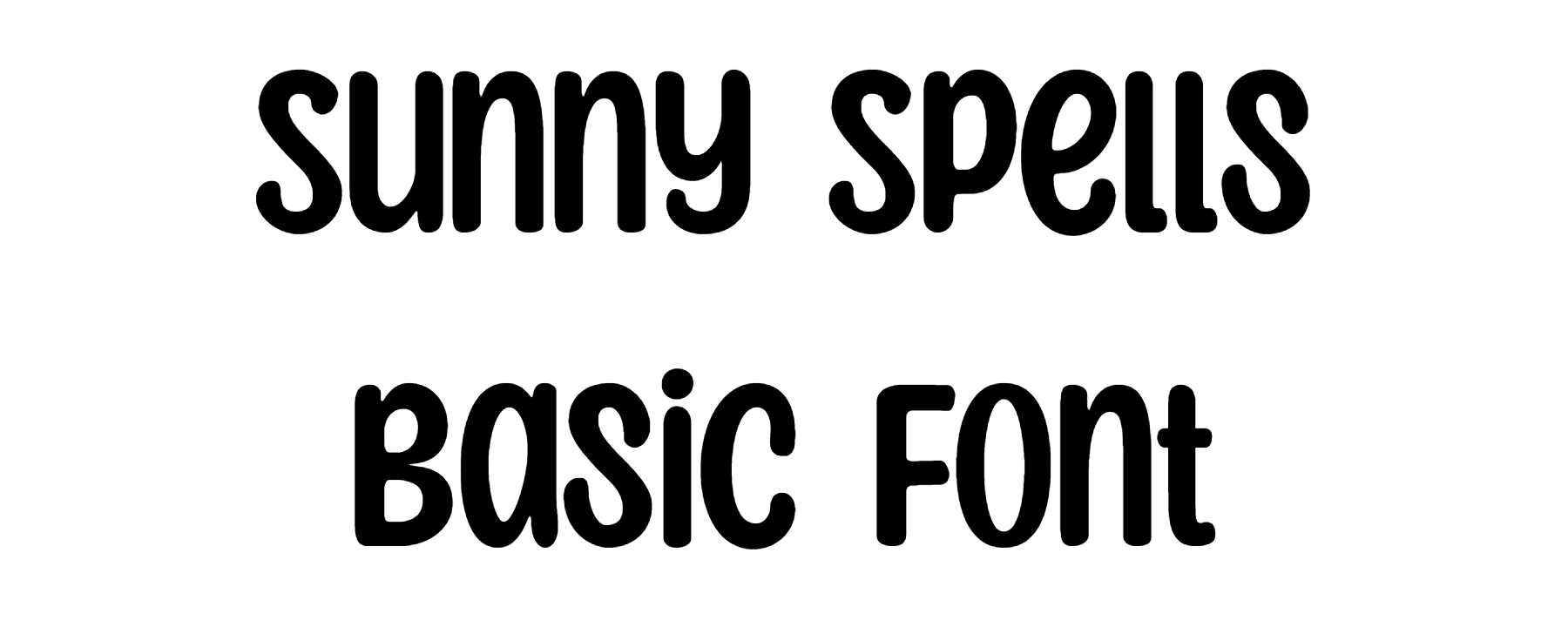
Sunny Spells Basic Font
Sunny Spells Basic
Sunny Spells Basic is a cartoon font made by Ali Hamidi. Its bouncy, rounded letters feel playful, like lettering from a cartoon or a comic book. It's a free download, and you can try it with your own text in the preview above first.
What You Can Type With Sunny Spells Basic
You get every letter from A to Z in both cases and all the numbers from 0 to 9, which means Sunny Spells Basic can handle full sentences, dates and prices. Everyday marks like &, !, ? and @ are there too. Thanks to its accented letters, it also works for Spanish, French, German, Portuguese and Italian, not just English.
Where Sunny Spells Basic Works Best
Think of Sunny Spells Basic for kids' books, birthday invites and fun YouTube thumbnails. Cartoon fonts are great for short, fun lines. If you place it over a busy photo, add a thick outline or a drop shadow so it stays readable.
Does Sunny Spells Basic support accented letters?
Yes. Sunny Spells Basic includes the accented letters needed for Spanish, French, German, Portuguese and Italian, so it works for more than just English.